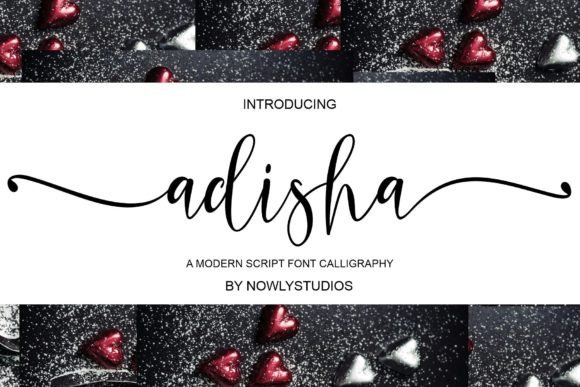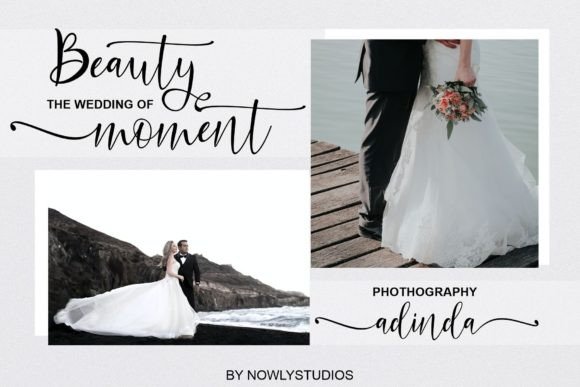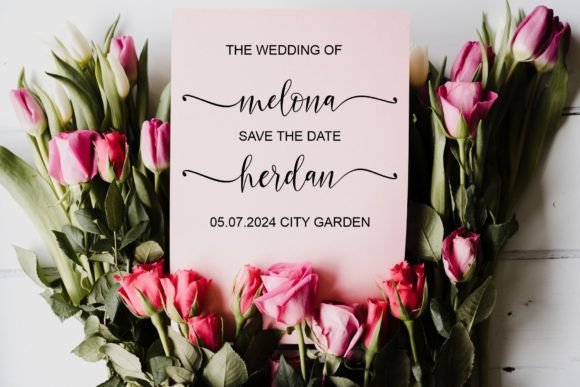
Adisha Font: Elegant Script for Wedding Invitations & Branding!
About the Adisha Font
We are excited to introduce Adisha Font, a must-have typeface for any serious designer. Adisha Script is a unique blend of classic and modern fonts, with imperfect style with ups and downs, like dance letters, smooth, clean, and simple. Perfect for weddings, events, invitations, escort cards, table numbers, header menus, displays, logos, slider blogs, custom addresses, stamps, packaging, greeting cards, etc.
Adisha Script includes alternate glyphs and beautiful swirls in a font including stylistic sets, Ligatures, etc. The Open Type features can be accessed by using Open Type savvy programs such as Adobe Illustrator CS, Adobe Indesign & CorelDraw X6-X7, and Microsoft Word. And this Font has given PUA unicode (specially coded fonts). so that all the alternate characters can easily be accessed in full by a craftsman or designer.